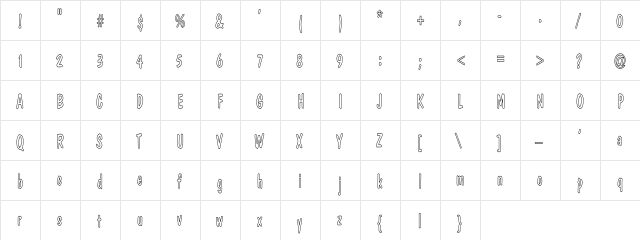
DomCasual-ThinHC Regular
Design Context for DomCasual-ThinHC Typeface
DomCasual-ThinHC is a composed and adaptable typeface that performs quietly and consistently across a wide range of design contexts. The delicate stroke weight brings airiness and refinement to layouts.